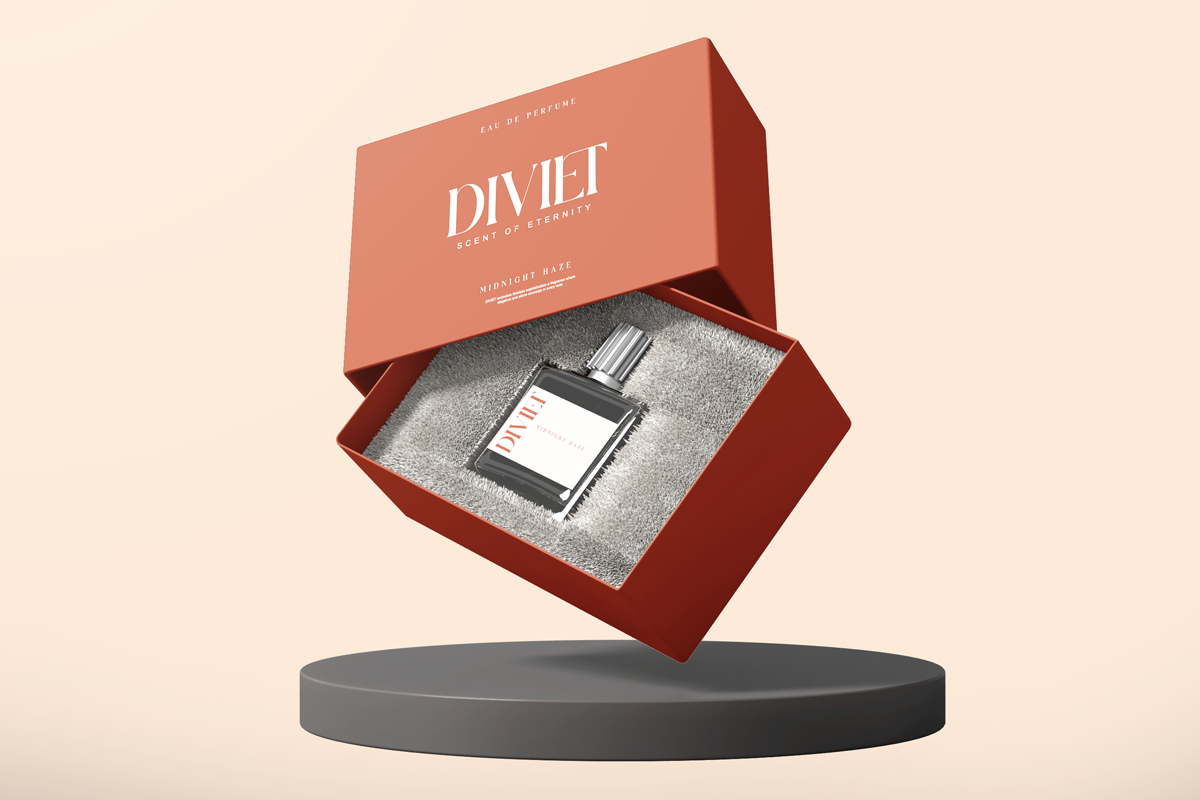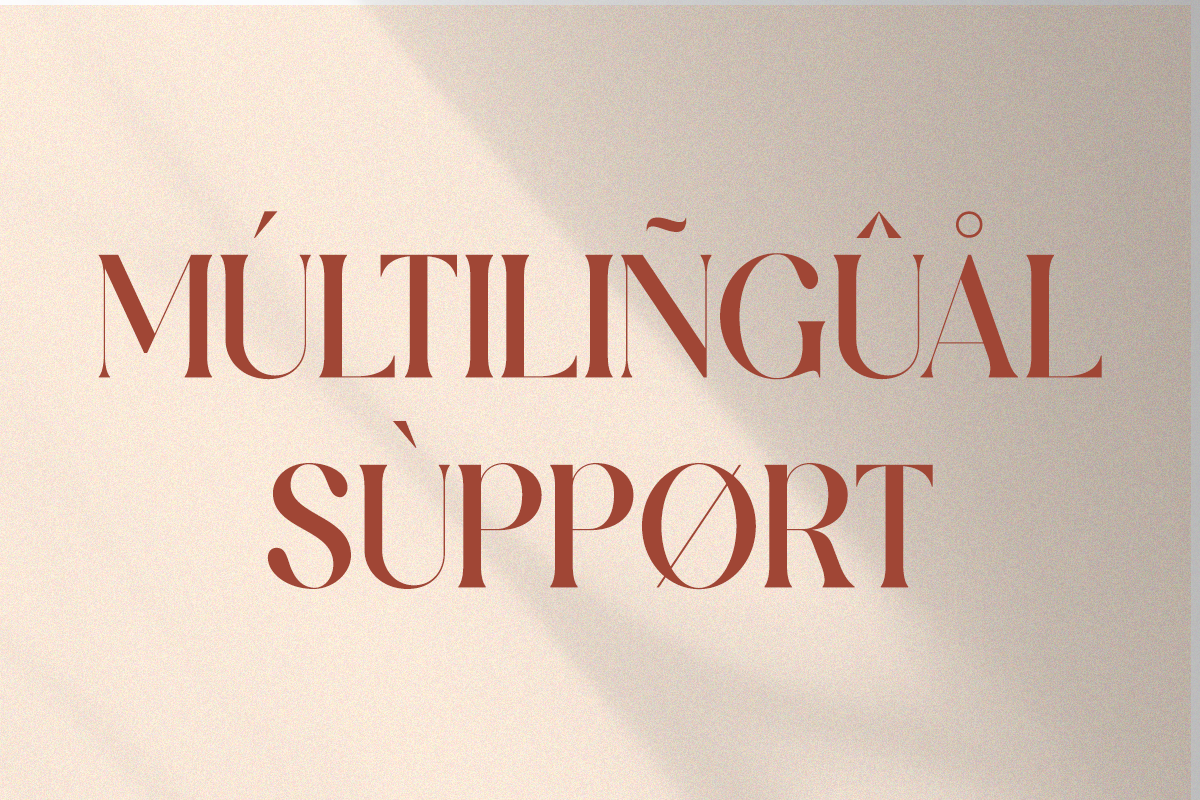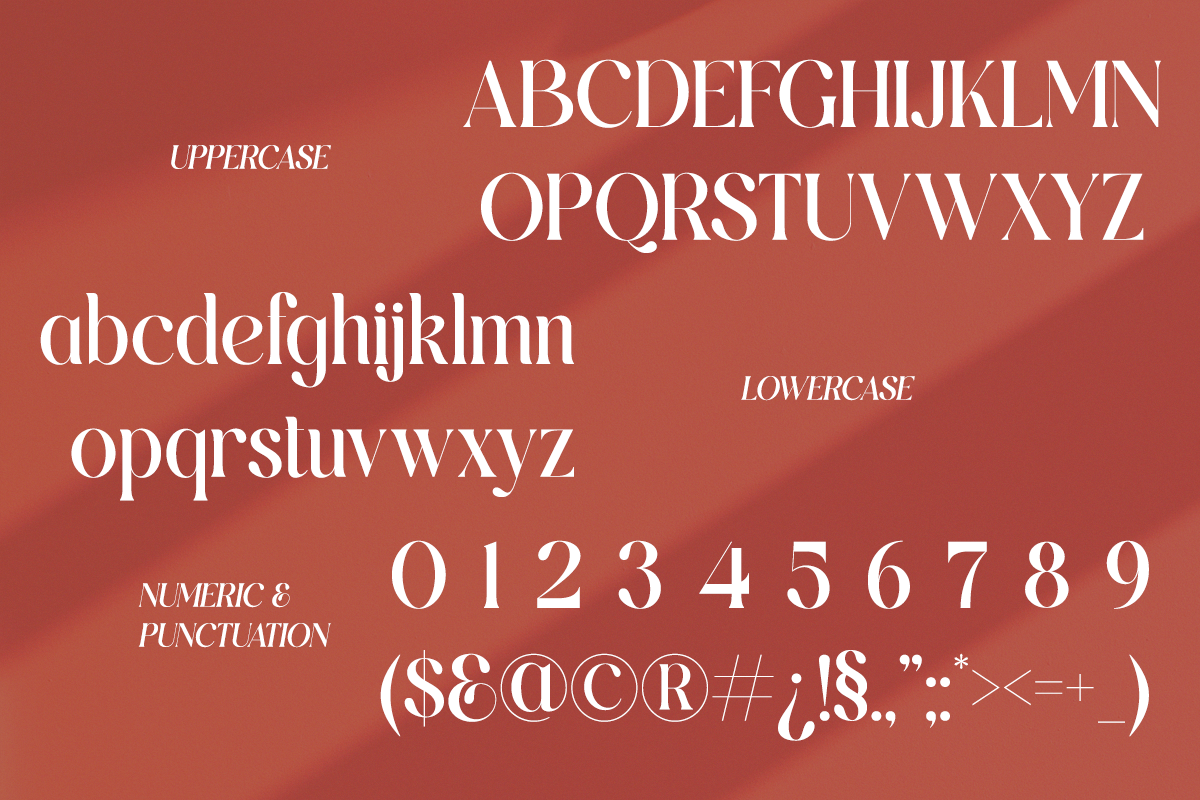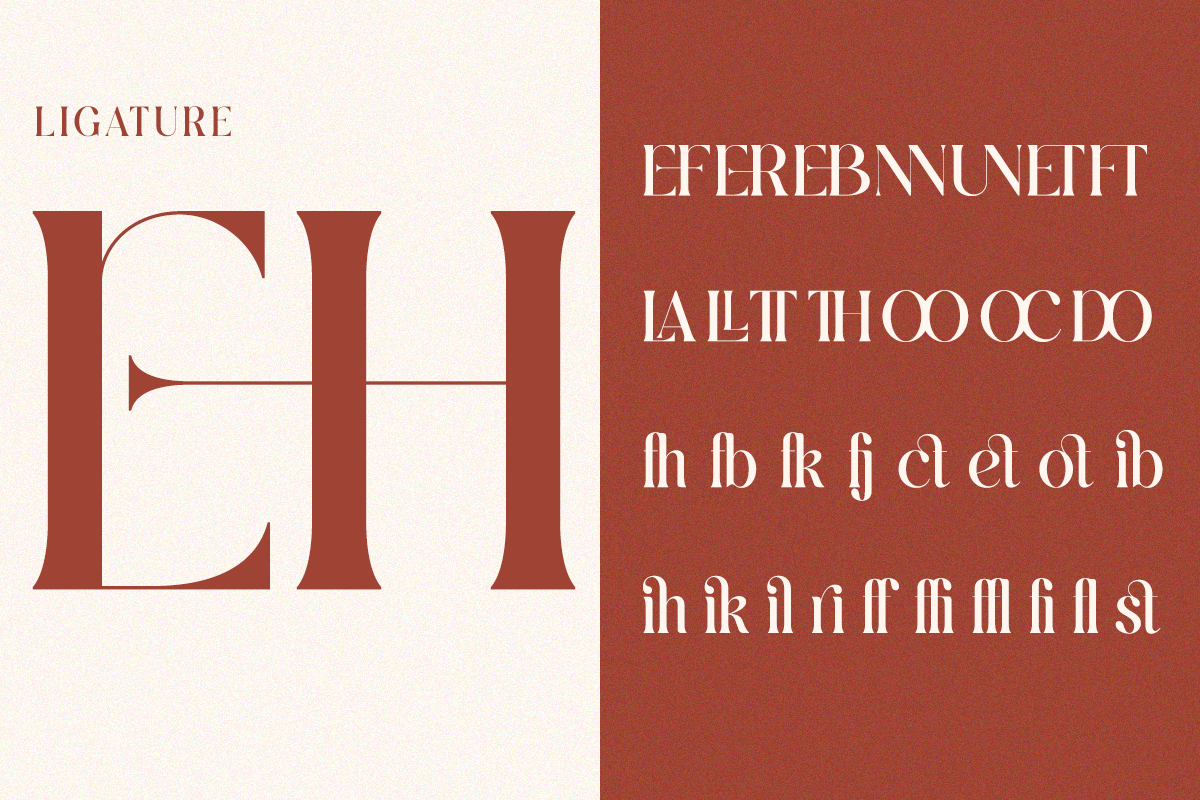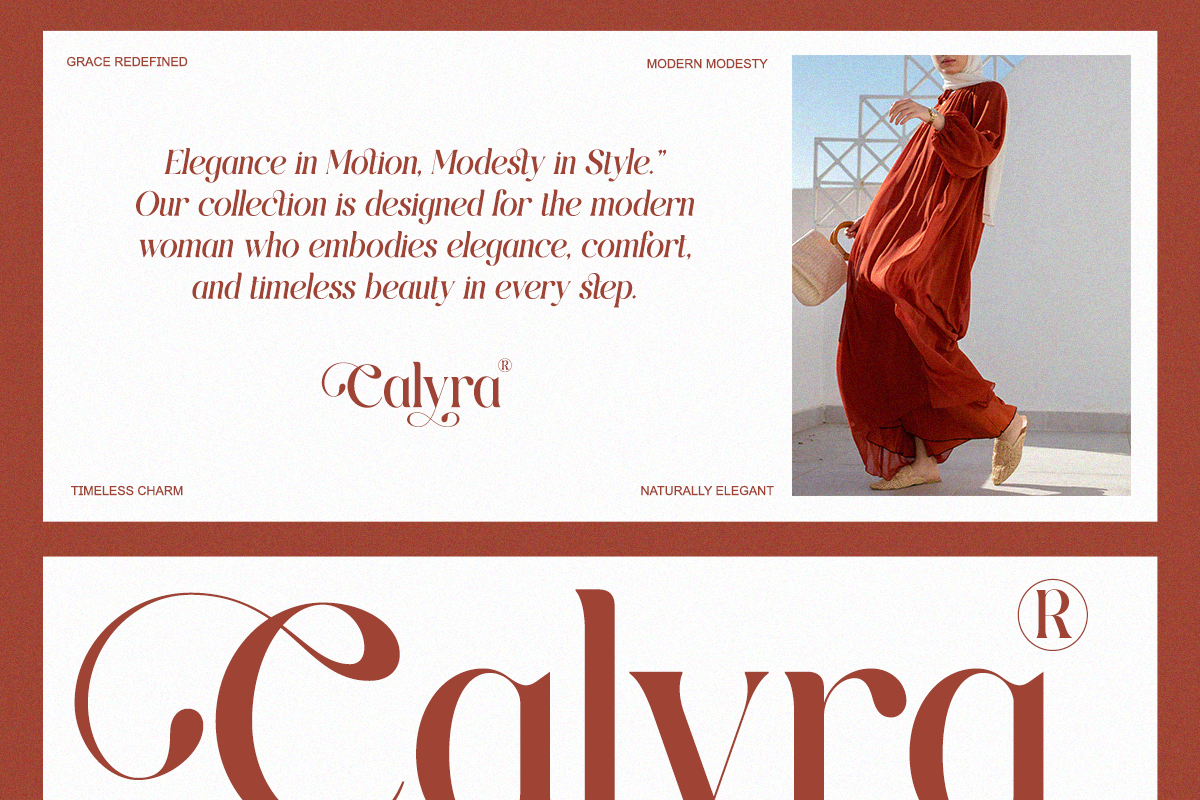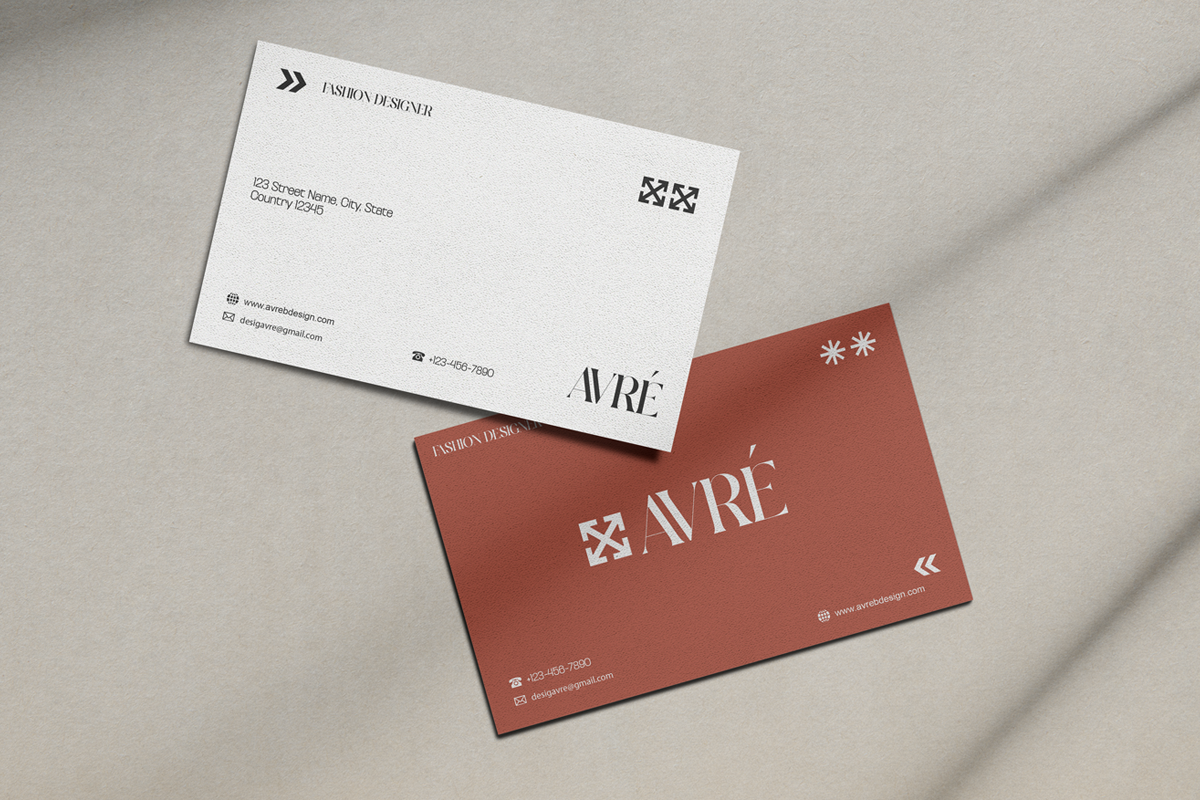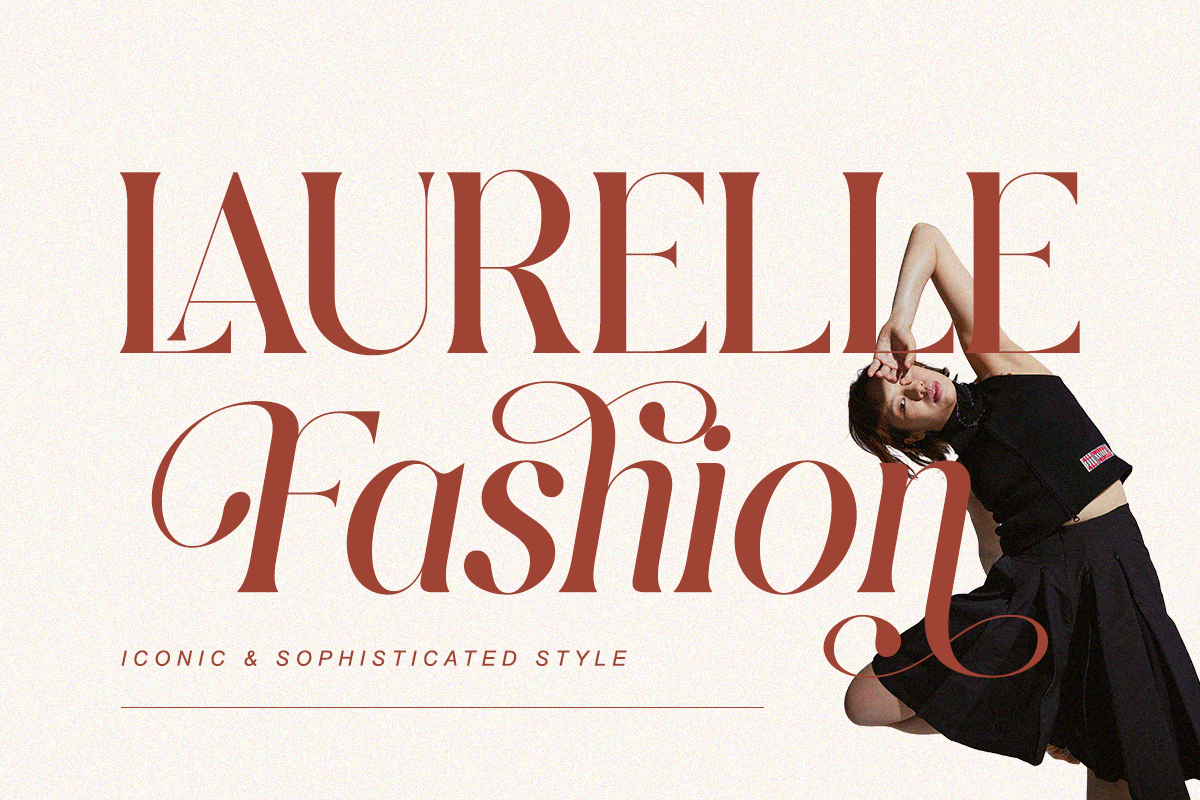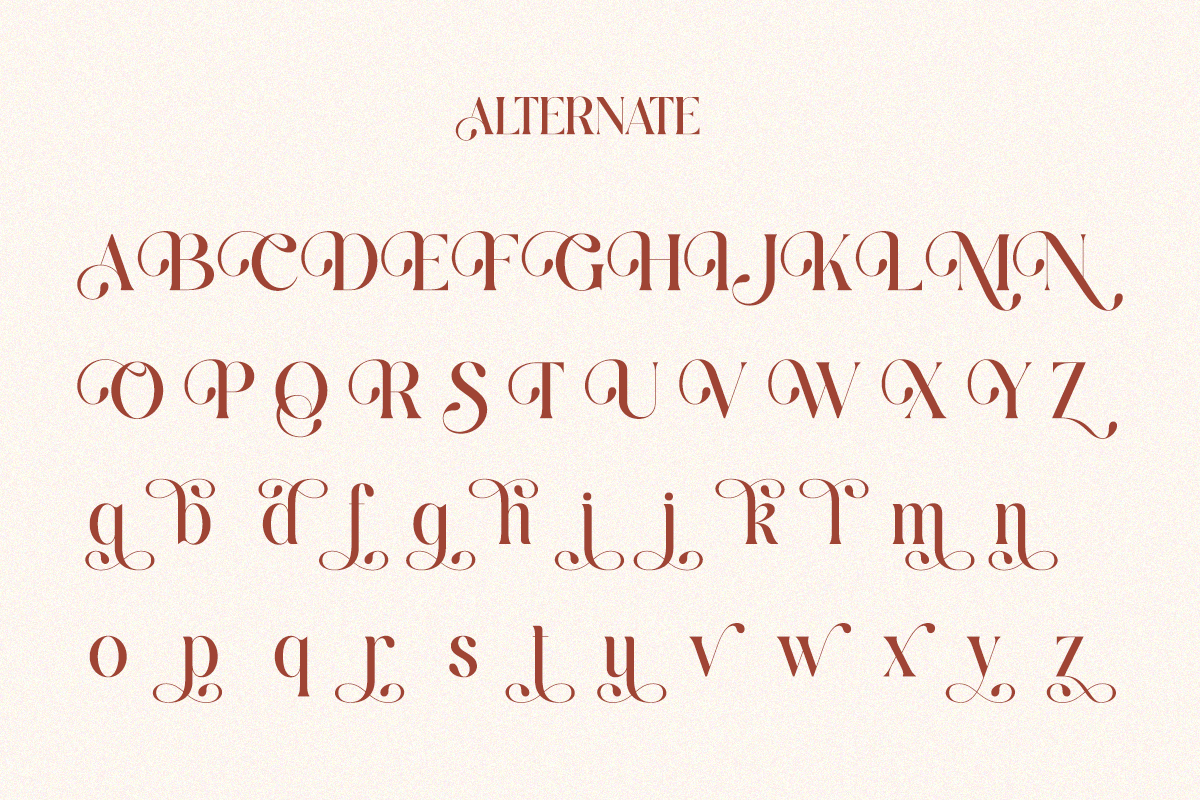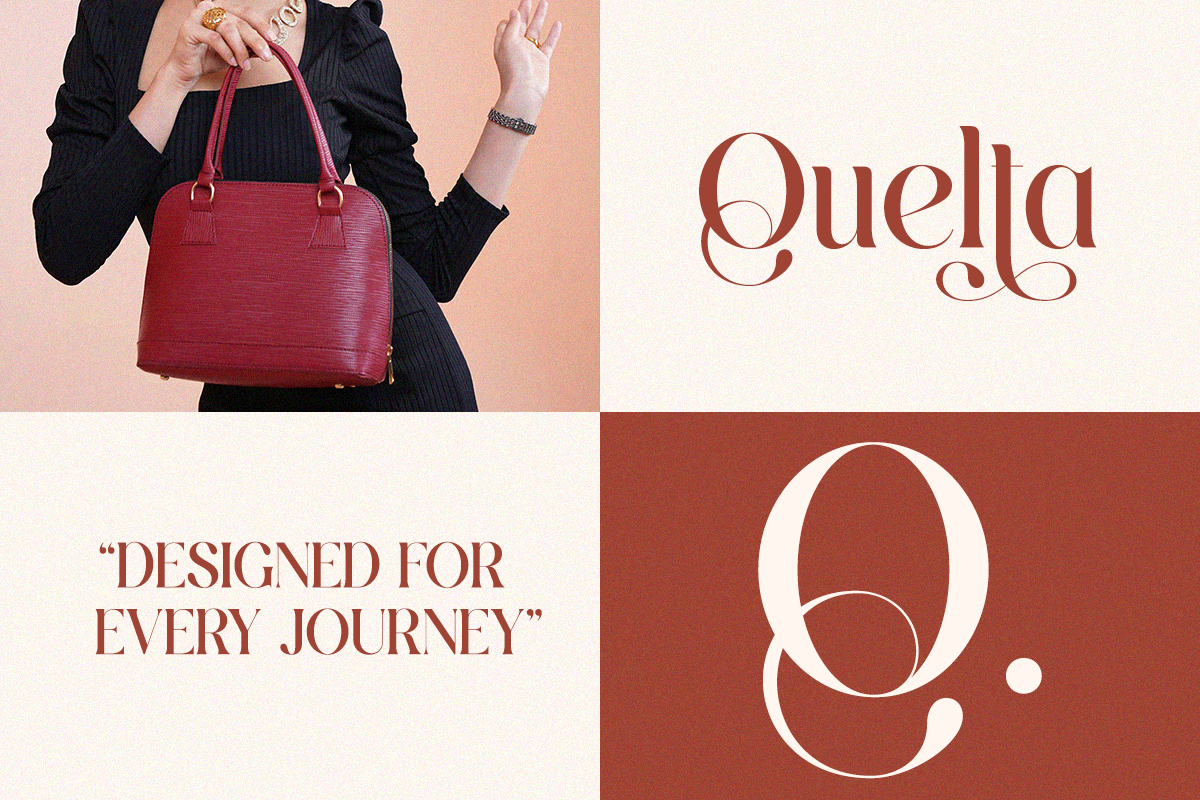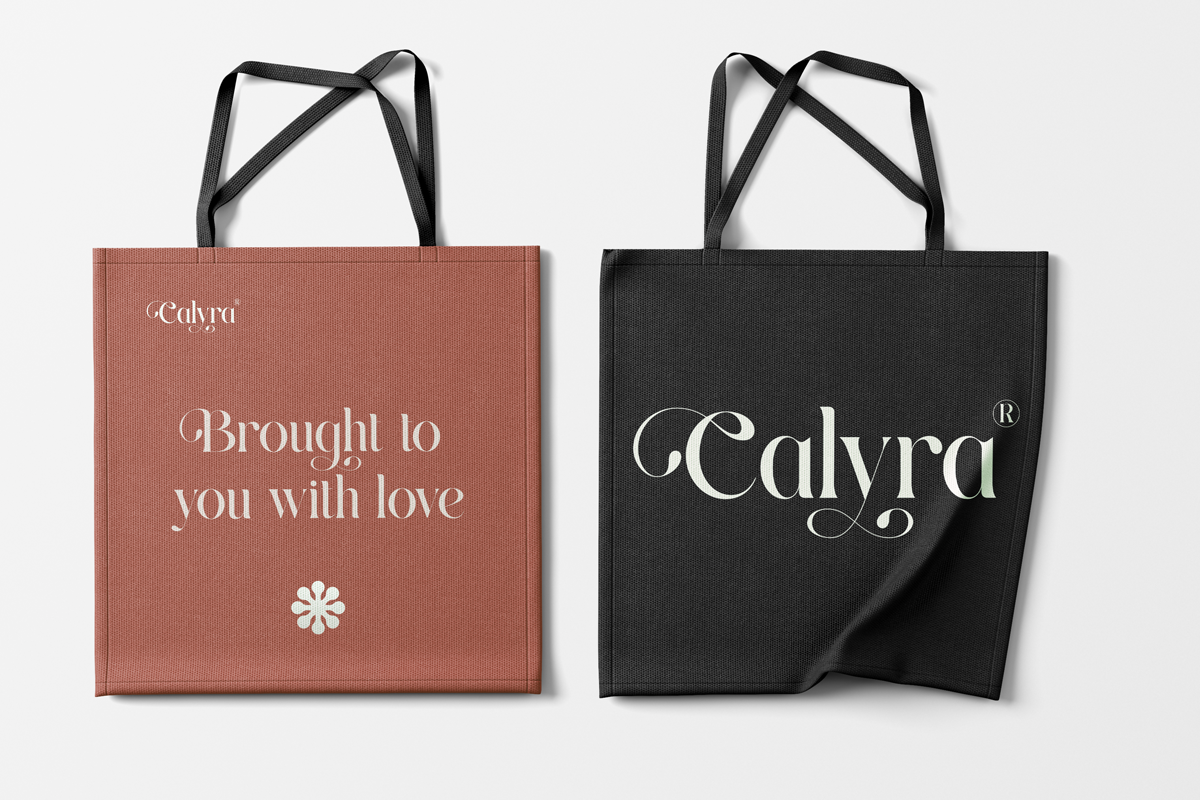
Rietaly Sheila - Elegant Luxury
Introducing Rietaly Sheila, a romantic and elegant serif font rich in decorative swashes and refined ligatures. This typeface blends feminine softness with luxury styling, creating the perfect balance for high-end branding, wedding stationery, beauty products, and editorial layouts.
Every curve is crafted to communicate sophistication—ideal for designers seeking a unique, expressive serif that feels both modern and timeless.
- Regular & Italic
- Decorative swashes & ligatures
- High-contrast editorial strokes
Perfect For Wedding invitations, luxury logos, perfume labels, fashion branding, magazine titles, beauty products, boutique packaging, and elegant social media templates.